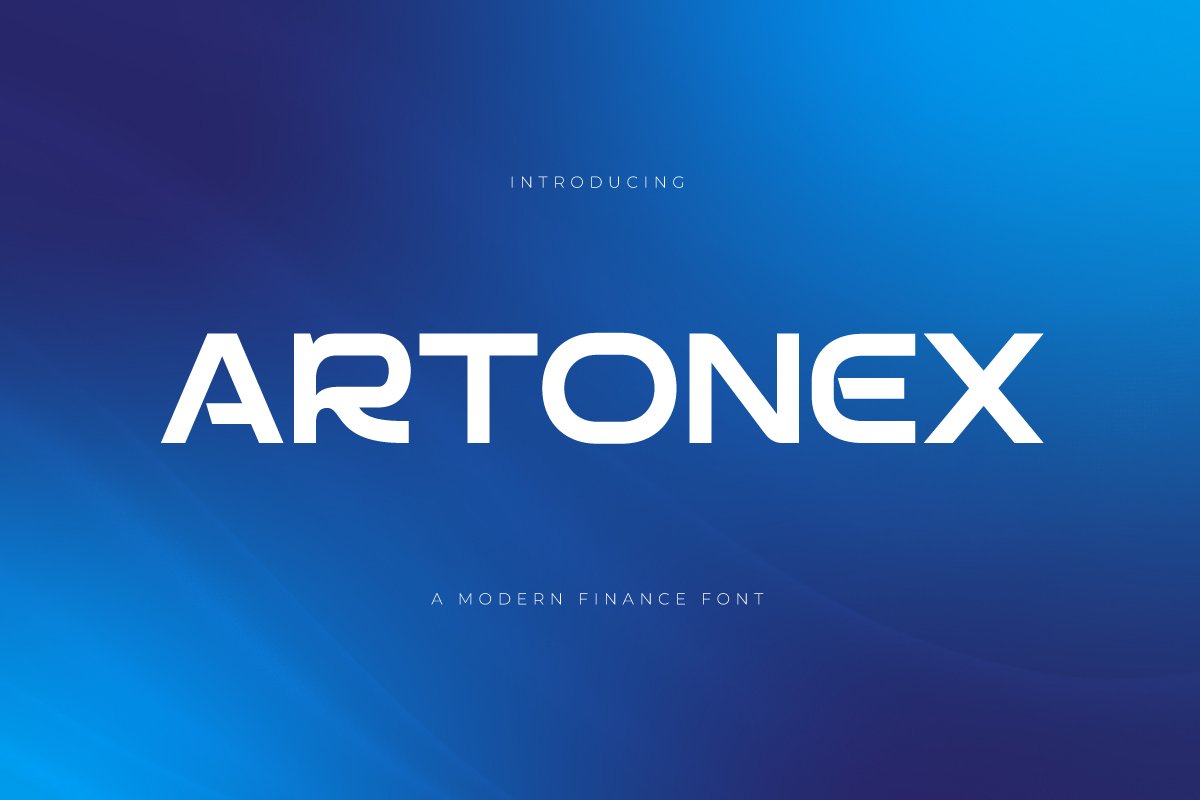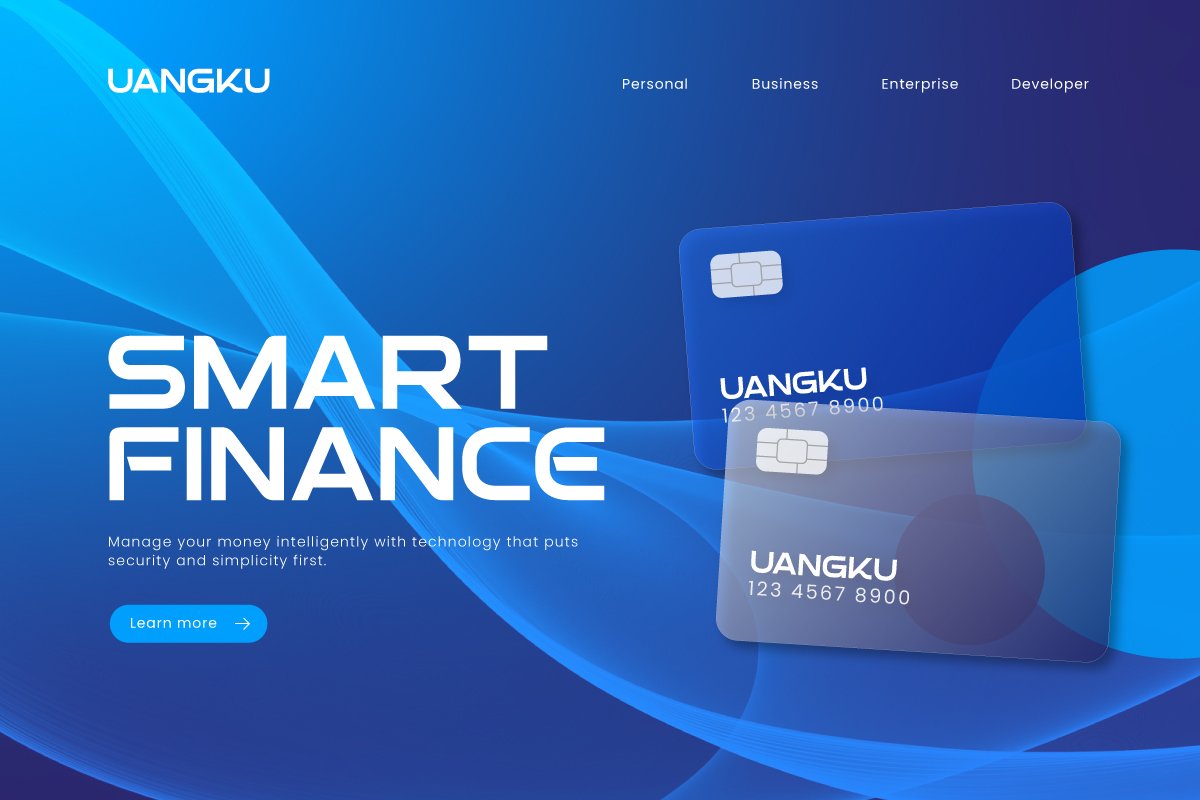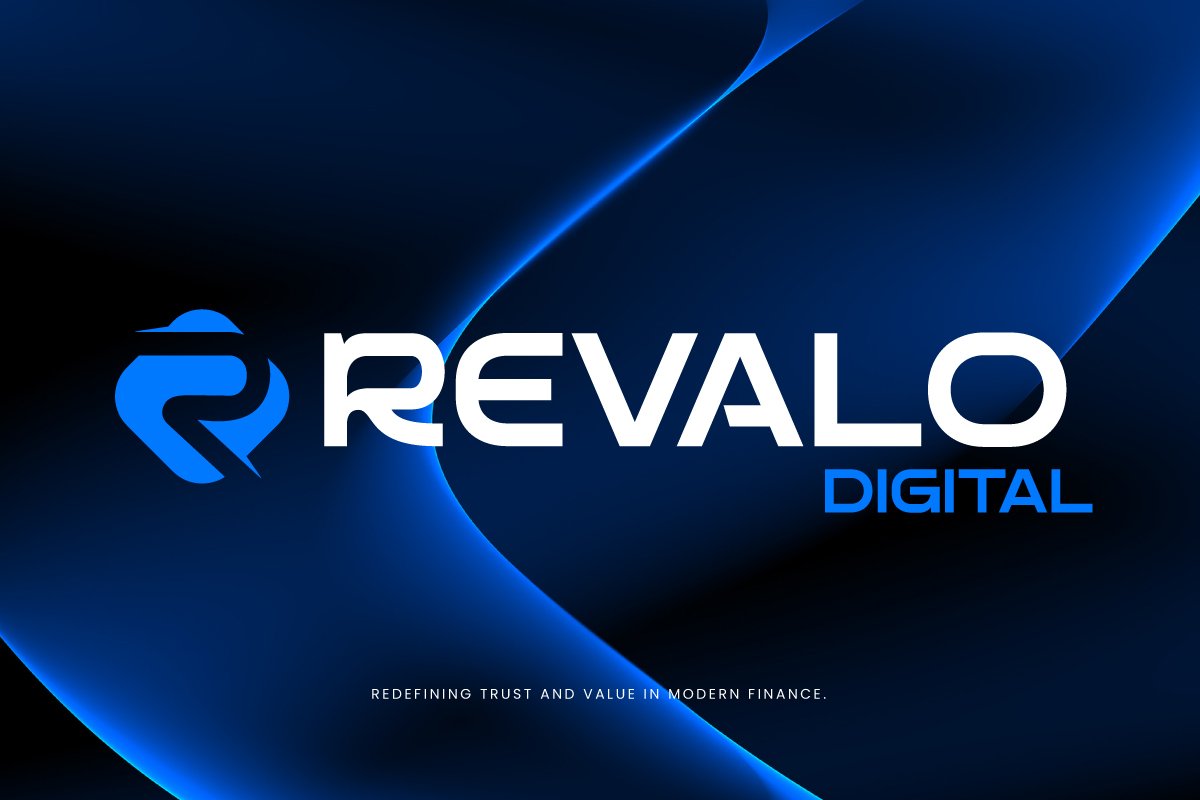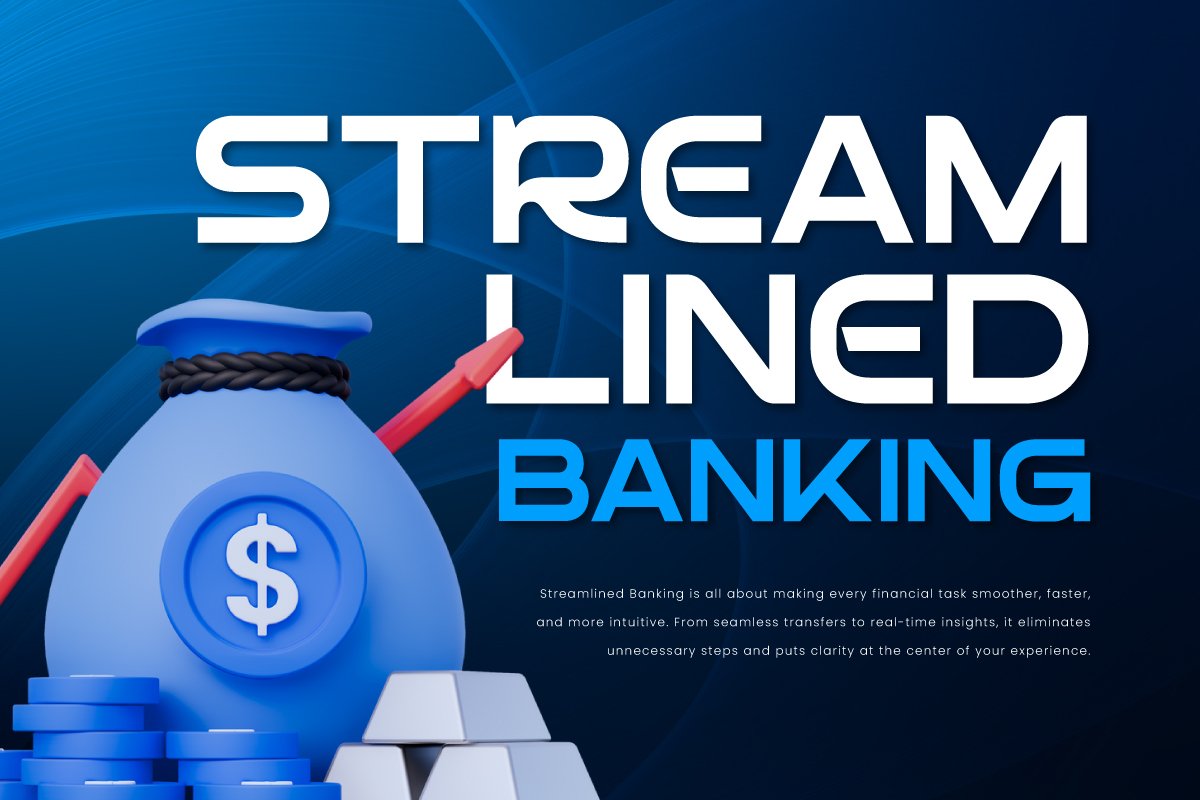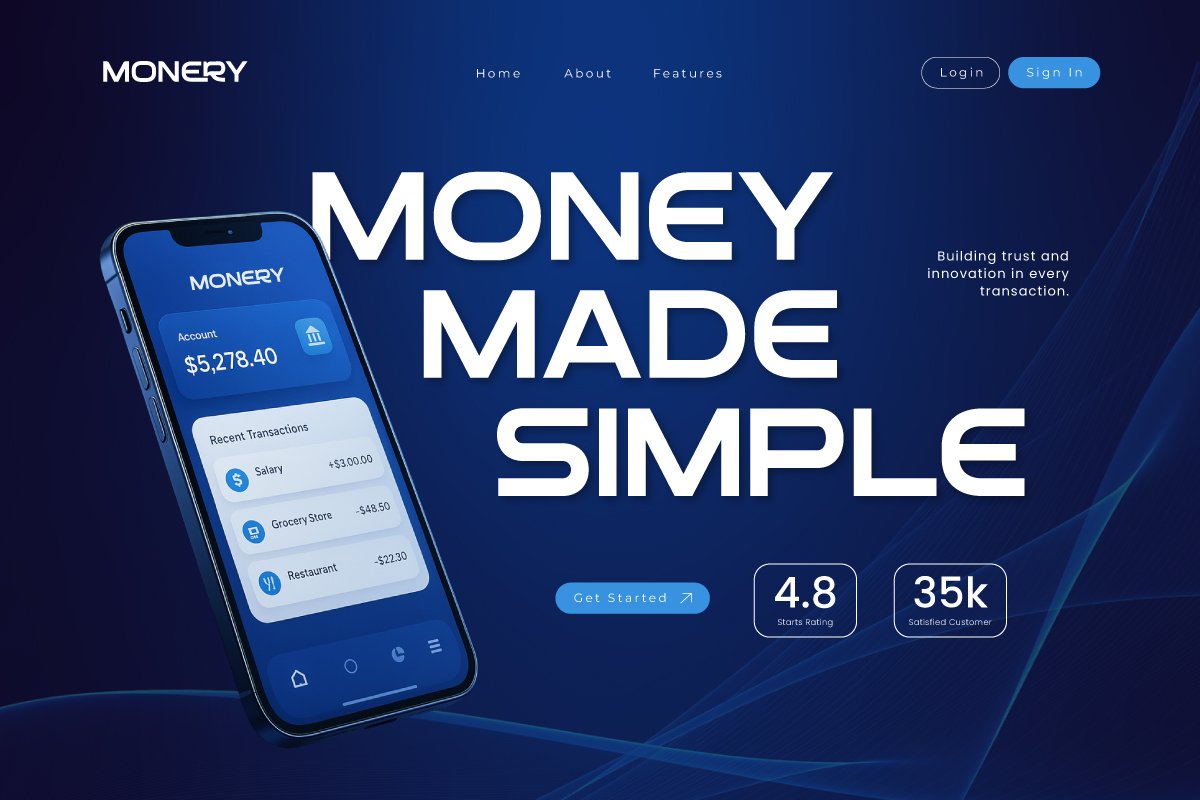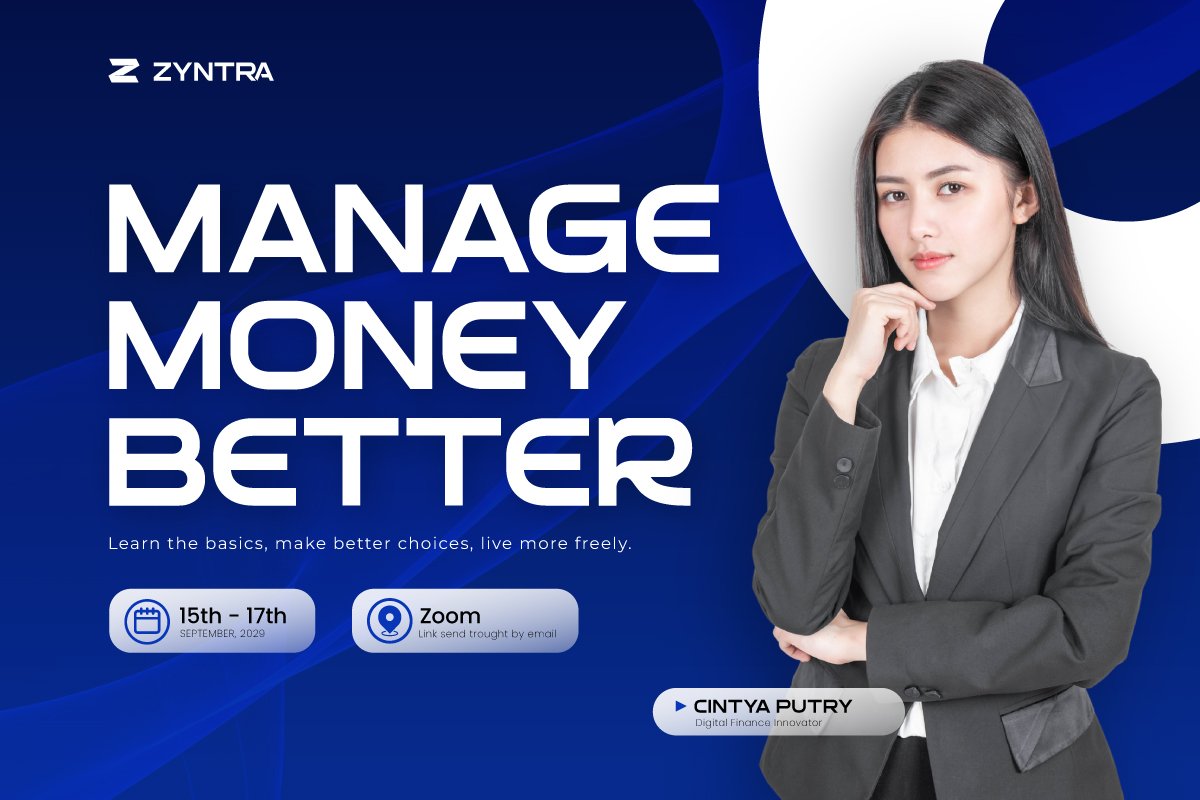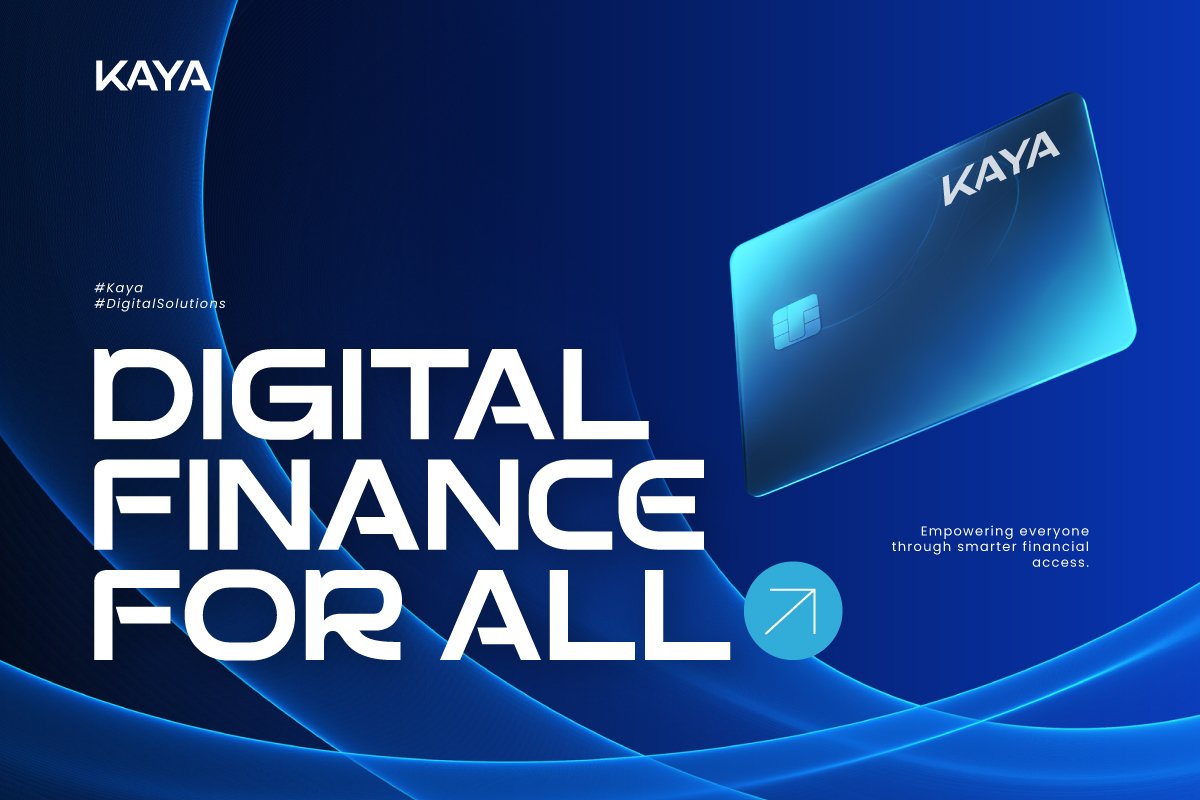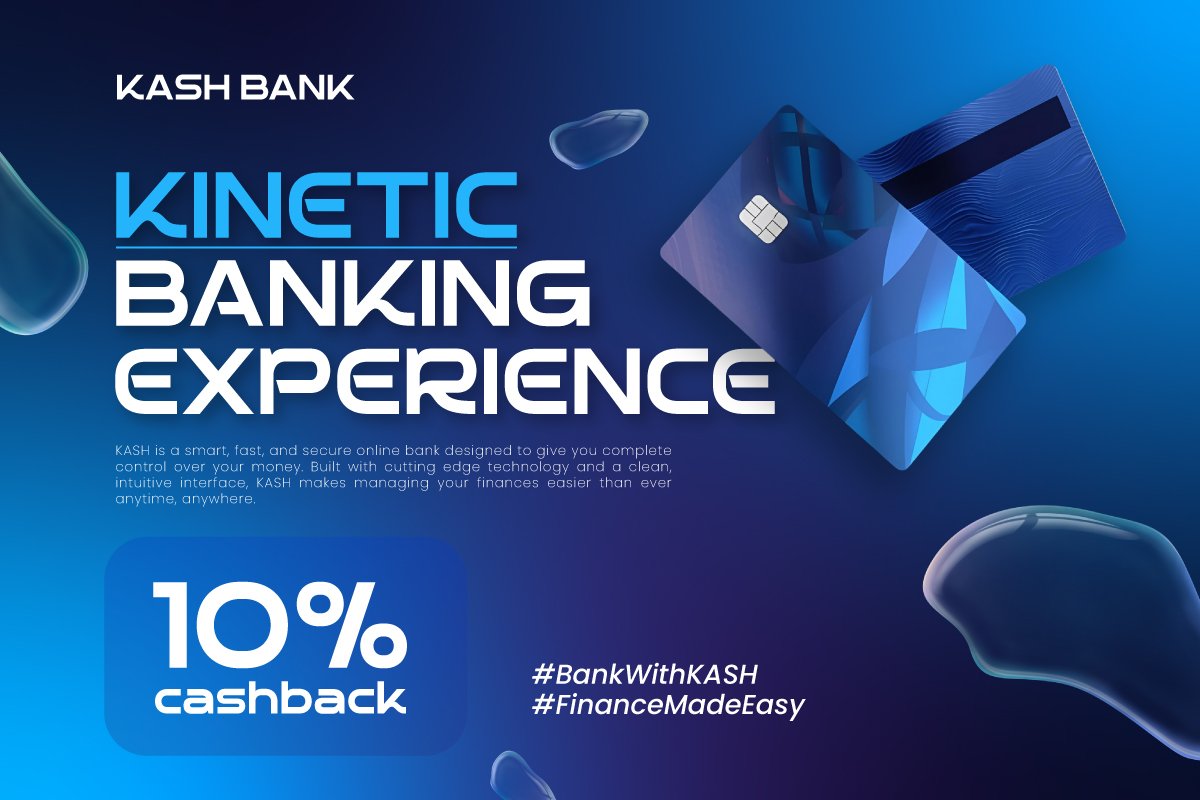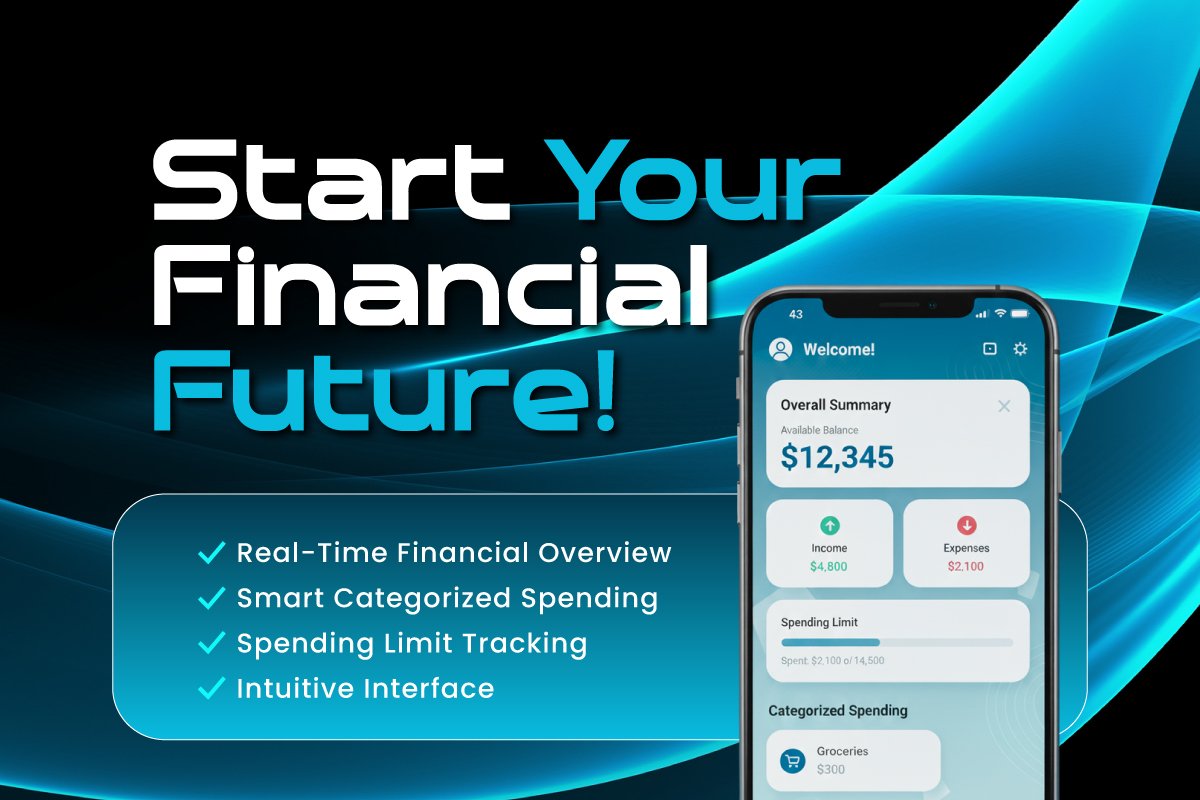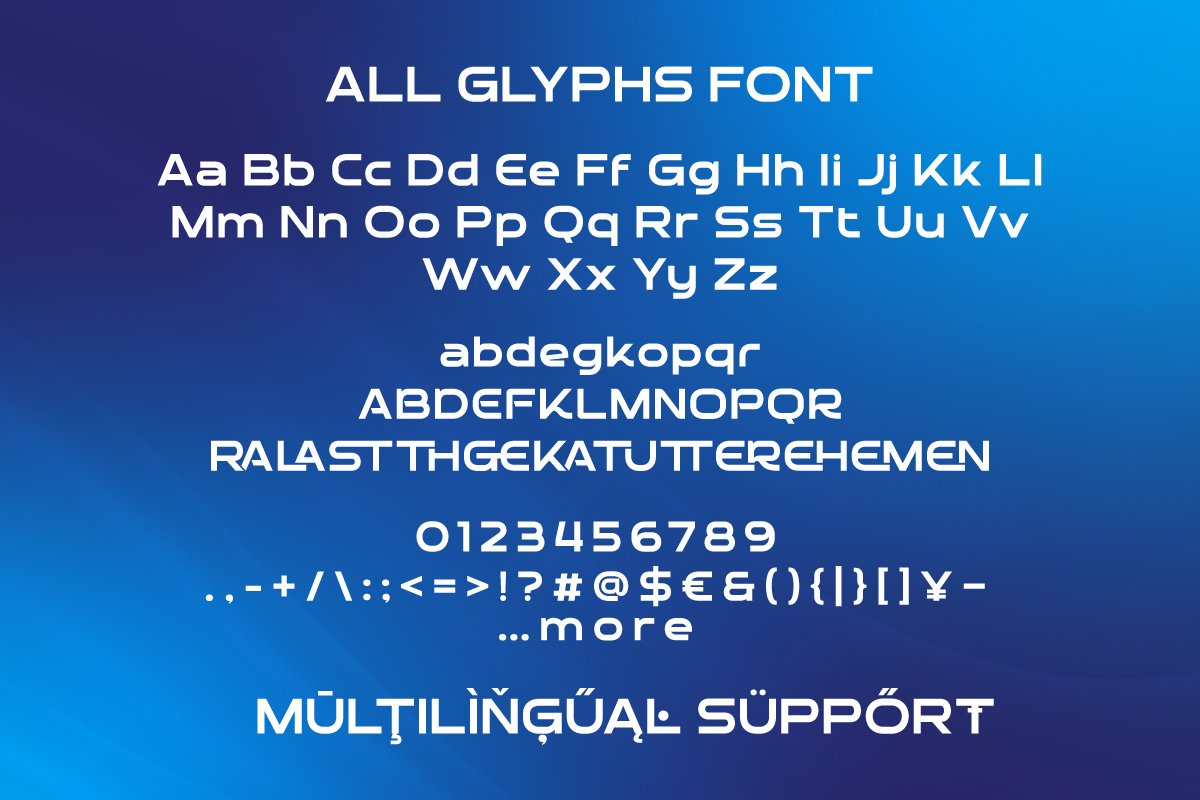
Artonex – Fintech Font
Artonex is a modern fintech typeface built with a futuristic structure and high visual precision, making it ideal for financial brands, banking apps, and crypto platforms. Its clean, bold, and stable shapes deliver a sense of trust, innovation, and high-end professionalism.
The geometric sans-serif style ensures maximum readability, making it perfect for fintech logos, digital dashboards, promotional headlines, and UI components that require clarity and strong visual hierarchy. Artonex is engineered to support modern digital ecosystems with confidence.
Designed for premium branding, Artonex elevates corporate technology visuals, finance-based interfaces, and startup identities. It brings a modern, secure, and forward-thinking aesthetic that enhances credibility across various digital and print applications.
Multilingual Support, including 85 languages: